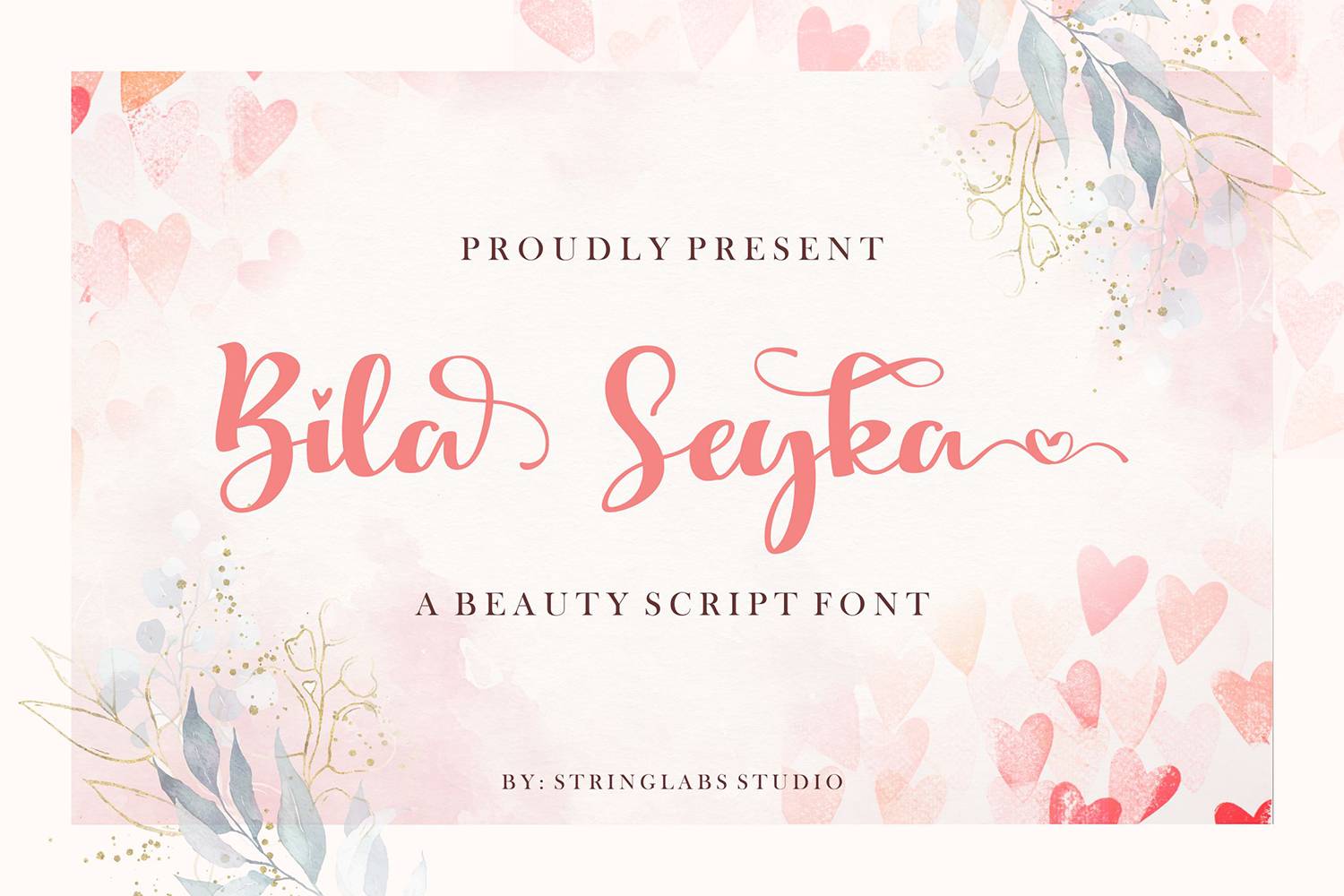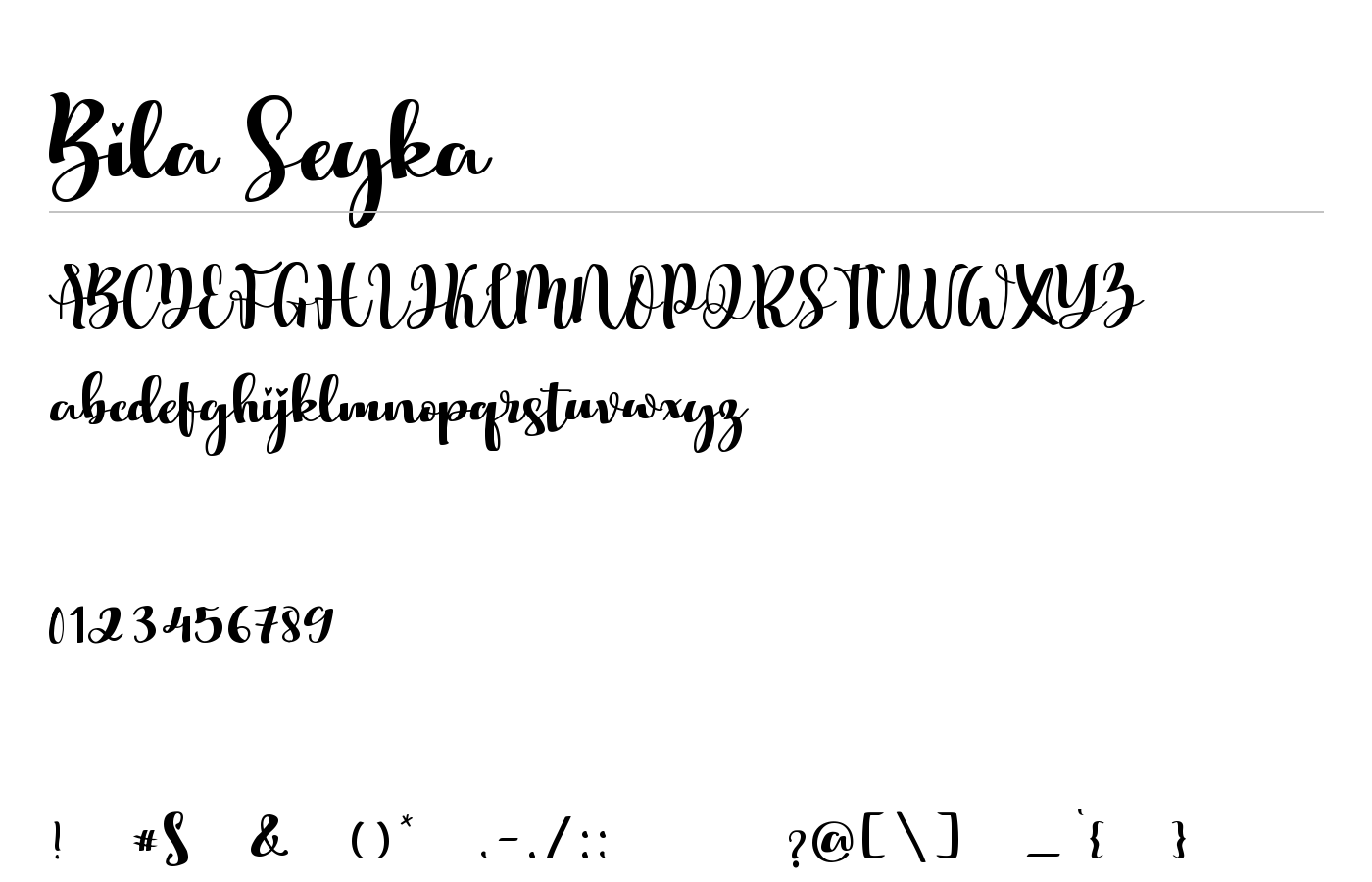
Bila Seyka is a playful and elegant script font characterized by its smooth, flowing strokes and lively letterforms. With its bold weight and charming swashes, it evokes a friendly yet sophisticated vibe, making it perfect for wedding invitations, branding, and creative projects that seek a personal, handcrafted feel. This font shines in display uses where its unique, decorative style can be appreciated.
Bila Seyka Font
About Bila Seyka Font